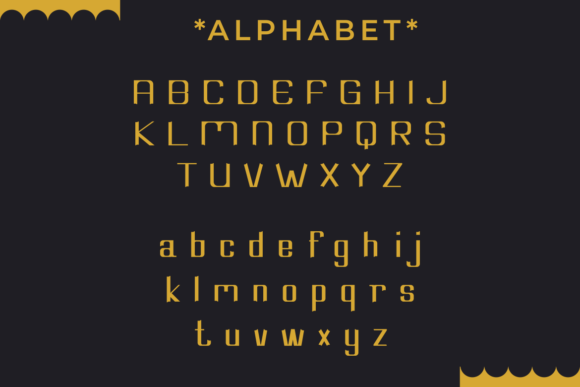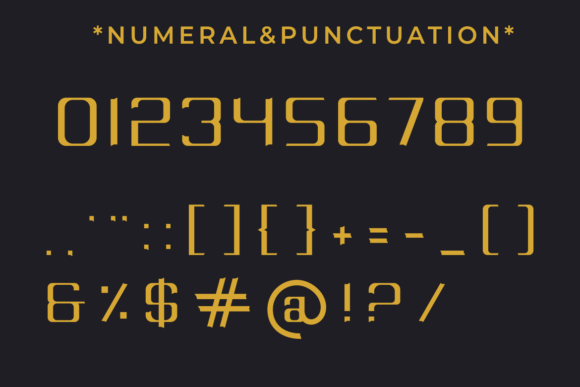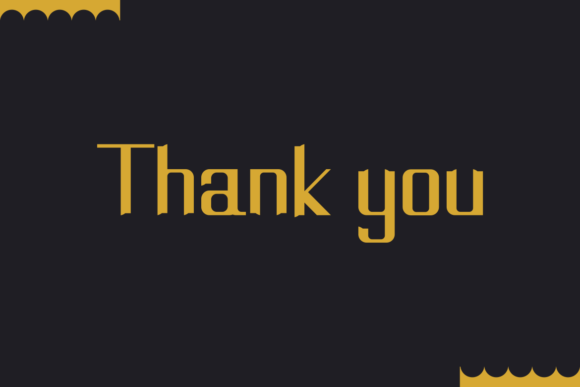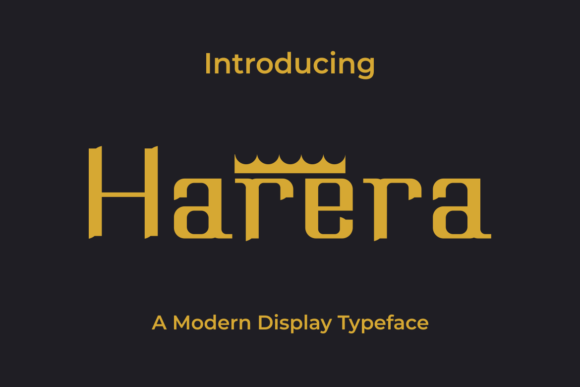
Introducing Harera Font: Elevate Your Designs with a Modern Display Font
In the world of graphic design, typography plays a crucial role in making a visual statement. A font can make or break the aesthetic appeal of a design. If you’re a designer or crafter looking for a modern display font to take your creative projects to the next level, look no further than Harera Font. In this article, we’ll explore the features and benefits of Harera Font and how it can elevate your designs.
What is Harera Font?
Harera is a modern display font designed to make a statement. Its sleek and contemporary design makes it perfect for a variety of applications, from magazine previews and covers to logo designs, shirt designs, and other graphic needs. With Harera Font, you can add a touch of sophistication and elegance to your designs, making them stand out from the crowd.
Key Features of Harera Font
- Modern Design: Harera Font boasts a modern design that’s perfect for designers and crafters who want to create visually stunning designs.
- Versatility: This font is versatile and can be used for a wide range of applications, from print to digital media.
- High-Quality: This font is designed with high-quality in mind, ensuring that your designs look professional and polished.
Benefits of Using Harera Font
So, why should you choose Harera Font for your design projects? Here are just a few benefits of using this amazing font:
- Stand Out Designs: With Harera Font, you can create designs that stand out from the crowd. Its unique and modern design ensures that your visuals grab attention and leave a lasting impression.
- Professional Look: This font gives your designs a professional look that’s perfect for businesses, brands, and individuals who want to make a statement.
Harera Font is a versatile font that can be used in a variety of design projects. Here are some inspiration and ideas to get you started:
- Magazine Previews and Covers: Use Harera Font to create eye-catching magazine previews and covers that grab attention.
- Logo Designs: Create stunning logo designs with Harera Font that reflect your brand’s personality and values.
- Shirt Designs: Design amazing shirt designs with Harera Font that make a statement.
- Graphic Needs: Use Harera Font for all your graphic needs, from brochures to posters, and more.
In conclusion, Harera Font is a modern display font that’s perfect for designers and crafters who want to create visually stunning designs. Its sleek and contemporary design, versatility, and ease of use make it a must-have font in your design arsenal. Whether you’re designing magazine previews and covers, logo designs, shirt designs, or other graphic needs, Harera Font is the perfect choice. So, what are you waiting for? Download Harera Font today and elevate your designs to the next level!